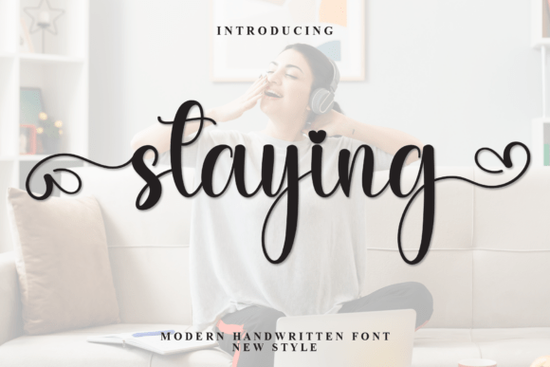
If you've been looking for a hand-lettered script font that feels warm and approachable, the Staying Font is worth a closer look. Also known as Sweet Whispers, this hand-scripted display typeface brings a whimsical, friendly character to any design project. Whether you're working on wedding invitations, greeting cards, or branding for a small business, it adds personable charm without trying too hard.
What Does the Staying Font Look Like?
This font features flowing, hand-drawn letterforms that feel natural and relaxed. The slightly imperfect strokes give it a handmade quality and that's exactly what makes it appealing. It's not overly polished or stiff, which is ideal when you want your designs to feel genuine and inviting.
- Hand-scripted style with natural, flowing connections
- Whimsical letterforms that feel friendly and approachable
- Display-ready design that works well at larger sizes
- A nice balance between playful and readable
Where Does This Font Work Best?
This typeface really shines in projects where you want to convey warmth, sincerity, or a touch of playfulness. Here are some practical ways to use it:
- Wedding invitations The flowing script pairs beautifully with romantic layouts and floral accents
- Greeting cards Perfect for birthday cards, thank-you notes, holiday designs, and heartfelt messages
- Social media graphics Adds a personal touch to quotes, announcements, and story templates
- Small business branding Great for bakeries, florists, boutiques, and cafés that want a friendly, approachable look
- Print-on-demand products Works nicely on mugs, tote bags, t-shirts, and posters with a hand-lettered aesthetic
- Blog headers and website accents Use it for decorative headings to soften a digital-looking layout
How Does It Compare to Other Script Fonts?
There are plenty of hand-scripted fonts available, so what makes this one different? The Staying Font sits in a comfortable middle ground between casual and elegant. It's not as formal as traditional calligraphy, but it's more refined than a rough, grungy script.
- More whimsical than a standard cursive typeface
- More readable than heavily stylized decorative scripts
- More personal than clean, modern sans-serifs
How Do You Pair Hand-Scripted Fonts With Other Typefaces?
A display script like this works best when it's balanced with a simpler companion font. Here are a few pairing ideas:
- With a clean sans-serif Fonts like Montserrat or Lato keep things modern and readable next to a flowing script
- With a light serif Something like Playfair Display or Lora adds elegance without competing for attention
- With a simple mono or slab font This creates an interesting contrast for designs that need a bit of edge
The key is to let the script font be the star. Use it for headlines, names, or featured words, and let the companion font handle longer text blocks.
Practical Tips for Using This Font Well
- Use it at larger sizes. Display fonts are built for headlines and featured text, not small body copy. Keep it above 18pt for best readability.
- Watch your letter spacing. Script fonts often need manual kerning adjustments, especially where certain letters meet.
- Don't overuse it. One or two hand-scripted elements per design is usually enough. Too many can feel cluttered.
- Test on your actual product. If you're selling print-on-demand items, mock up the design on the product before listing it.
- Check background contrast. Thin script strokes can get lost on busy or dark backgrounds. Always test visibility.